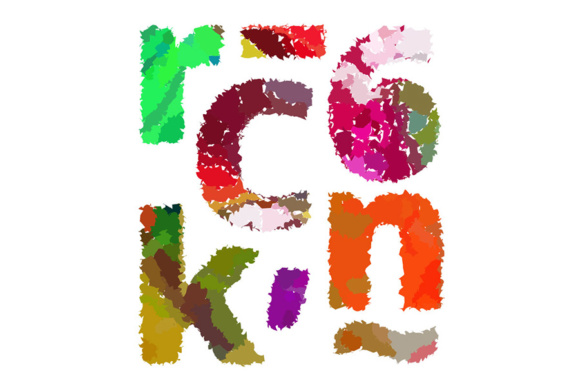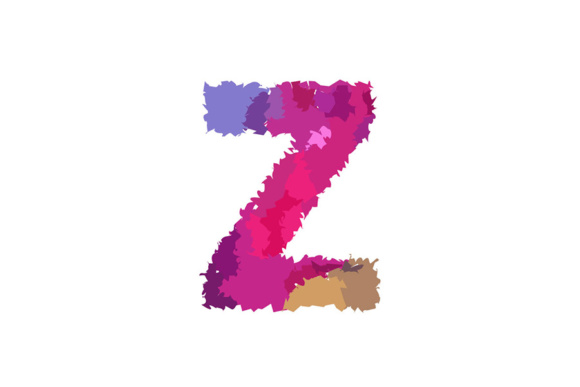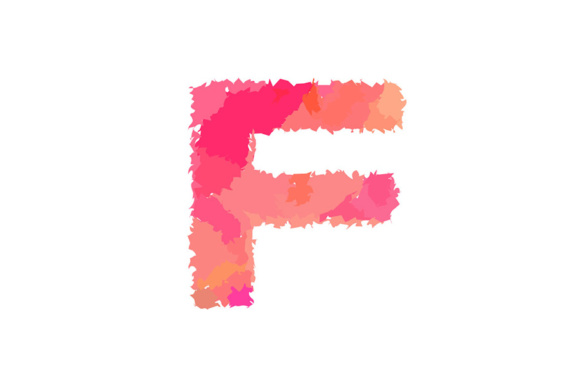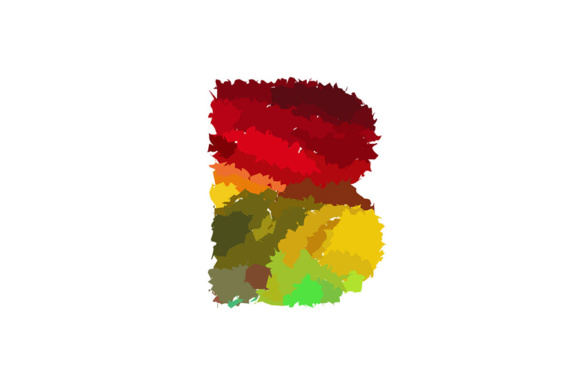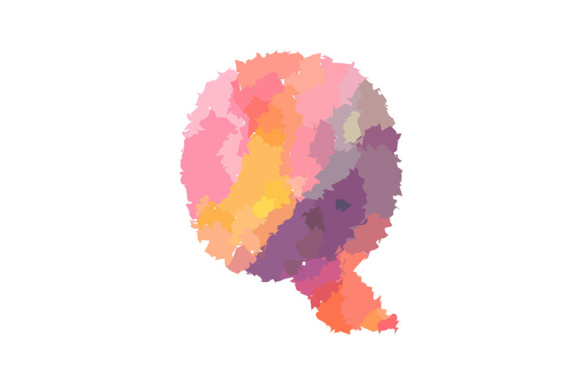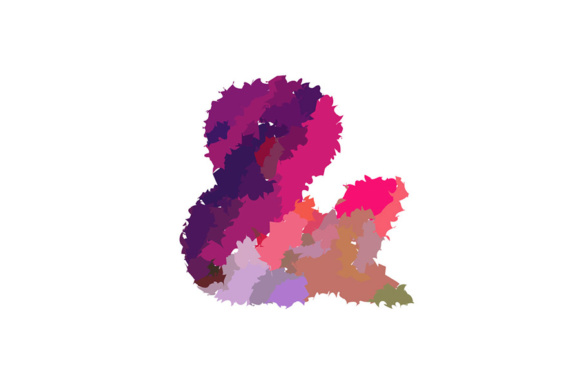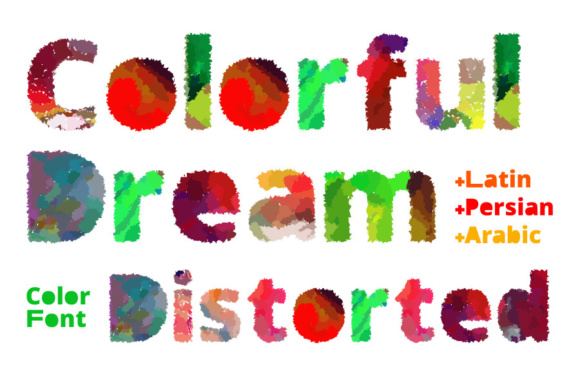
Introducing Colorful Dream Distorted Font: Add a Splash of Vibrancy to Your Designs
Are you tired of using the same old fonts in your designs? Do you want to add a pop of color and creativity to your typography? Look no further than the Colorful Dream Distorted Font! This fun and vibrant font is perfect for designers and crafters who want to take their designs to the next level.
A Watercolor Vibe like No Other
The Colorful Dream Distorted Font has a unique watercolor vibe that sets it apart from other fonts. Its soft, blended edges and vibrant colors give it a dreamy, ethereal quality that’s perfect for designs that need a touch of whimsy. Whether you’re creating a poster, a social media graphic, or a craft project, this font is sure to add a splash of personality to your design.
What are Color Fonts?
If you’re new to color fonts, you may be wondering what all the fuss is about. Color fonts are a relatively new technology that allows designers to use fonts with multiple colors and gradients. Unlike traditional fonts, which are limited to a single color, color fonts can be used to create vibrant, eye-catching designs that really stand out.
Perfect for Type-Heavy Designs
The Colorful Dream Distorted Font is perfect for type-heavy designs, where the font is the main focus of the design. Its bold, vibrant colors and unique watercolor texture make it a great choice for designs that need to make a statement. Whether you’re creating a poster, a flyer, or a social media graphic, this font is sure to grab attention and draw the eye.
Tips for Using Colorful Dream Distorted Font
Here are a few tips for getting the most out of the Colorful Dream Distorted Font:
- Use it sparingly: While the Colorful Dream Distorted Font is vibrant and eye-catching, it can be overwhelming if used too much. Use it sparingly to add a pop of color and interest to your design.
- Pair it with a simple font: To create visual interest, pair the Colorful Dream Distorted Font with a simple, sans-serif font. This will help to create contrast and make your design more readable.
- Experiment with colors: One of the best things about the Colorful Dream Distorted Font is its vibrant colors. Experiment with different colors and gradients to find the perfect combination for your design.
The Colorful Dream Distorted Font is a fun and vibrant font that’s perfect for designers and crafters who want to add a splash of creativity to their designs. Its unique watercolor vibe and bold, vibrant colors make it a great choice for type-heavy designs that need to make a statement. With its support in Adobe Photoshop and Illustrator, it’s easier than ever to incorporate this font into your designs. So why not give it a try and see what amazing designs you can create?